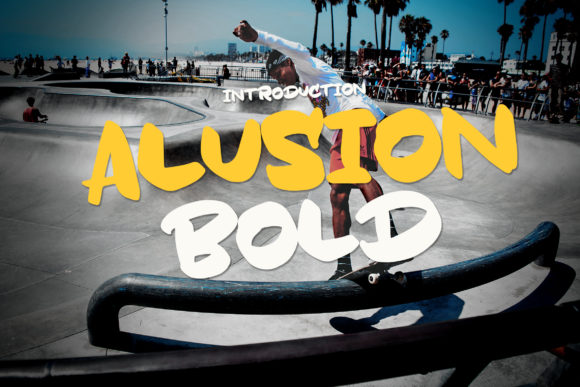
The Designer’s Delight: Alusion Bold Font
Have you ever been in the middle of a design project, and suddenly, it feels like something’s missing? You’re not quite sure what it is, but you know it’s not quite right. I’ve been there too! I was working on a project for a client who wanted a fresh and contemporary look, and I was struggling to find the perfect font. That’s when I stumbled upon Alusion Bold, a bouncy and quirky display font that instantly added a spark to my design.
My Honest Review of Alusion Bold
So, what do I love about Alusion Bold? Here are a few things that make it stand out:
- ✨ Unique and quirky design that adds a fresh touch to any project
- ✅ Highly legible, even at larger font sizes
- 💥 Perfect for display text, headings, and titles
- 🎉 Works well with a variety of design styles, from modern to playful
Of course, no font is perfect, and Alusion Bold has a few small quirks:
- 🤔 May not be the best choice for body text or smaller font sizes
- ⚠️ Some characters may not work well with certain OpenType features
One of the best things about Alusion Bold is its support for OpenType features and glyphs. Here are a few tips for getting the most out of these features:
- Experiment with stylistic alternates to add more personality to your text
- Use glyphs to add decorative elements to your design
- Take advantage of OpenType features like ligatures and swashes to add more flair to your text
The Story Behind Alusion Bold
Alusion Bold was designed by a team of creatives who wanted to create a font that was both fun and functional. Inspired by the playful curves of modern design, Alusion Bold is the perfect choice for designers who want to add a fresh touch to their projects.
| Font Name | Alusion Bold Font |
| Author | flavortype |
| What is Alusion Bold? | Alusion Bold is a bouncy and quirky display font that’s perfect for adding a fresh touch to your designs. |
| Is Alusion Bold suitable for body text? | No, Alusion Bold is best used for display text, headings, and titles. It may not be the best choice for body text or smaller font sizes. |
| Is Alusion Bold available in other font weights? | Yes, Alusion Bold is part of a larger font family that includes several weights and styles. You can experiment with different weights to find the one that works best for your design. |